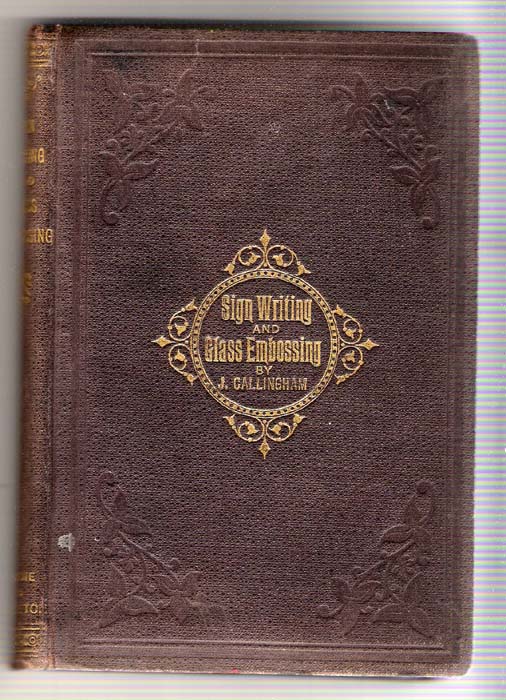
sign writing and glass embossing; a complete practical manual of the art. by james callingham
Has anyone got this book ? Is it worth getting? I know it was first published in the 1800s
sign writing and glass embossing; book
Re: sign writing and glass embossing; book
Of course !- If its out there.
I found a copy a few years ago- quite a small book but chunky (and very much of its time) but much of it still relevant.
reads as you would expect - The pre-runner to Sutherland's Modern signwriter , Hearn's Art of signwriting and Stewart's Signwork.
Re: sign writing and glass embossing; book